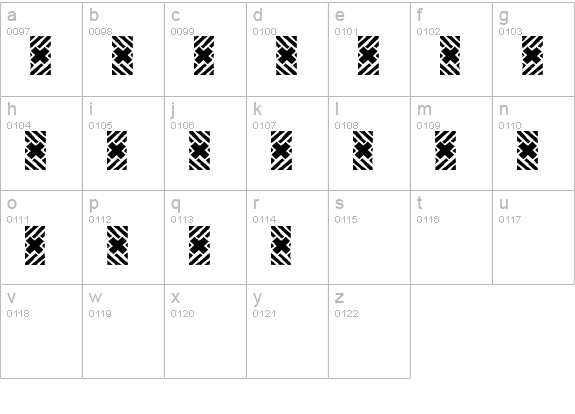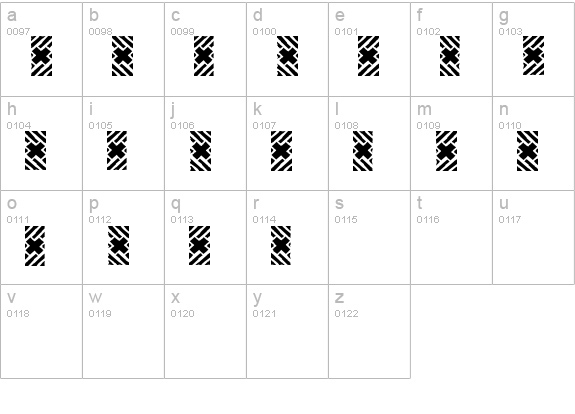
Stoned-MosaicFour font is a unique and eye-catching typeface that combines the beauty of stone textures with the intricate patterns of mosaic art. This font exudes a sense of strength and durability, making it perfect for projects that require a bold and distinct look. The carefully crafted design of Stoned-MosaicFour font adds a touch of sophistication and elegance to any text or design. What's even better is that Stoned-MosaicFour font is available for free download at FontsMarket.com. This means that you can easily access this stunning font and use it in your personal or commercial projects without any cost. Don't miss out on the opportunity to enhance your creations with the captivating appeal of Stoned-MosaicFour font – download it now and let your designs shine!